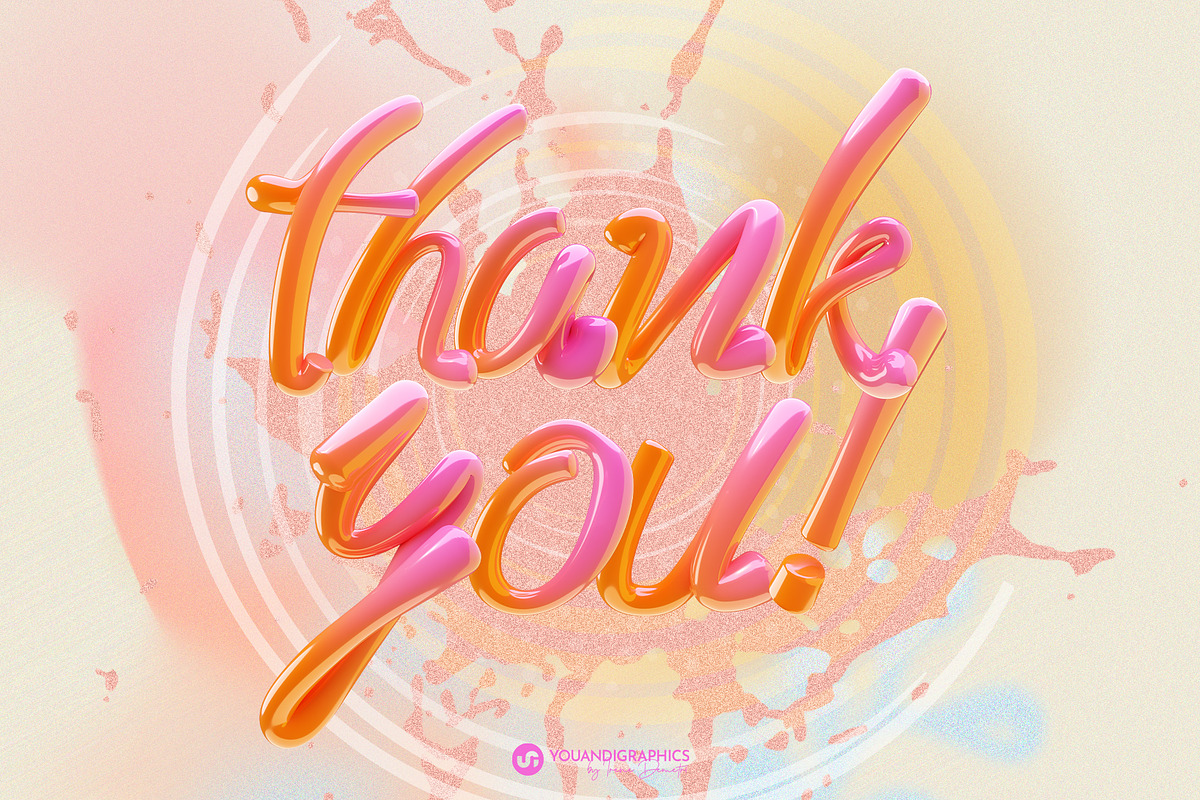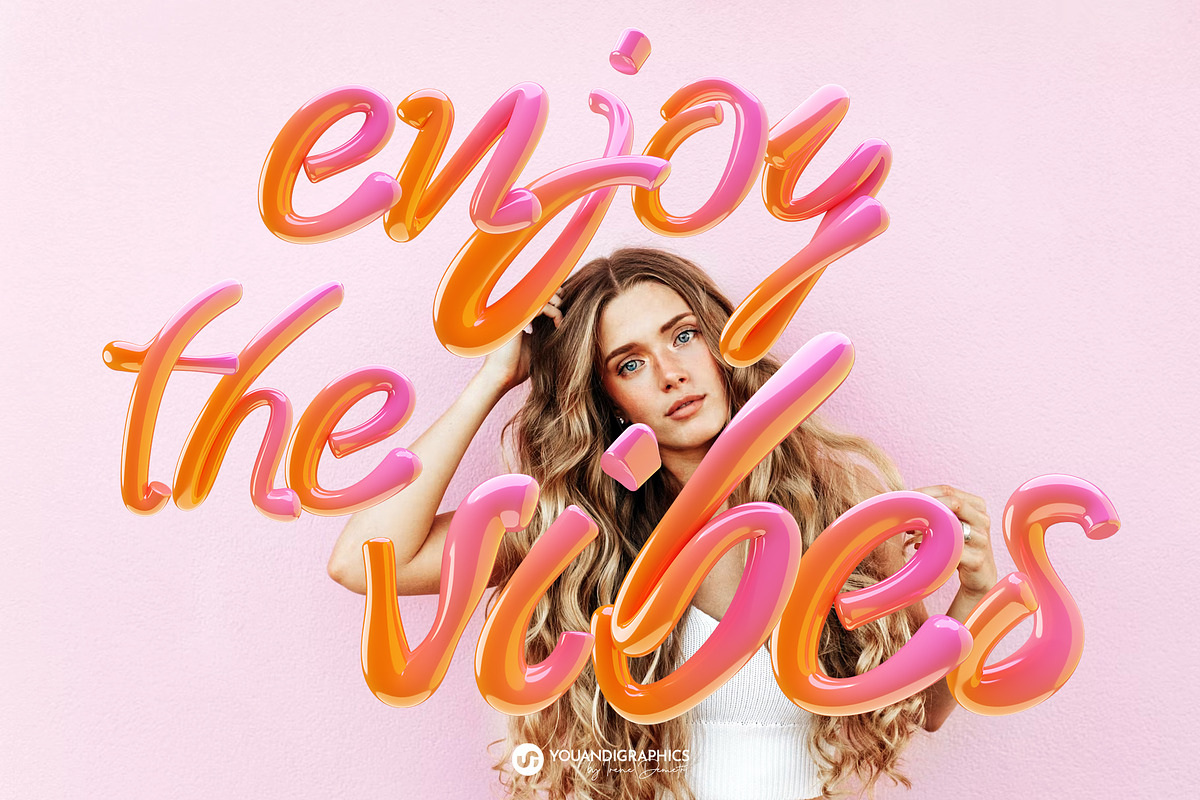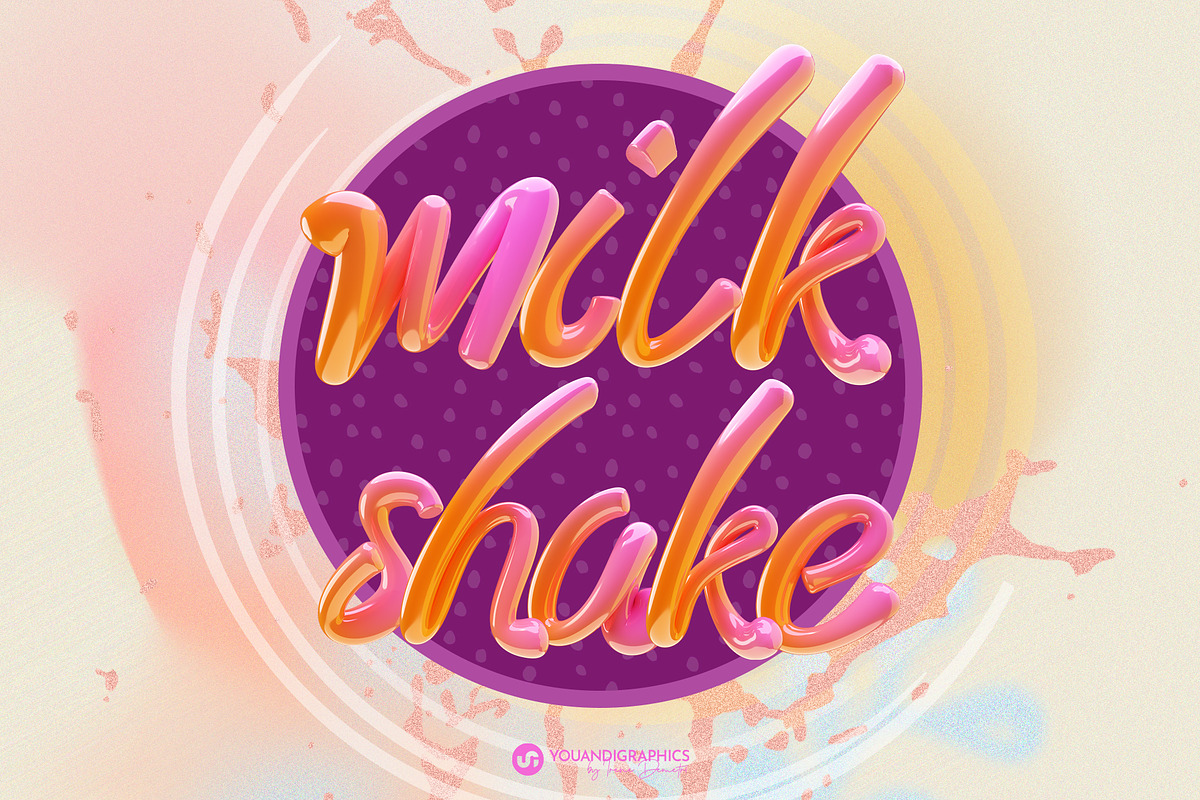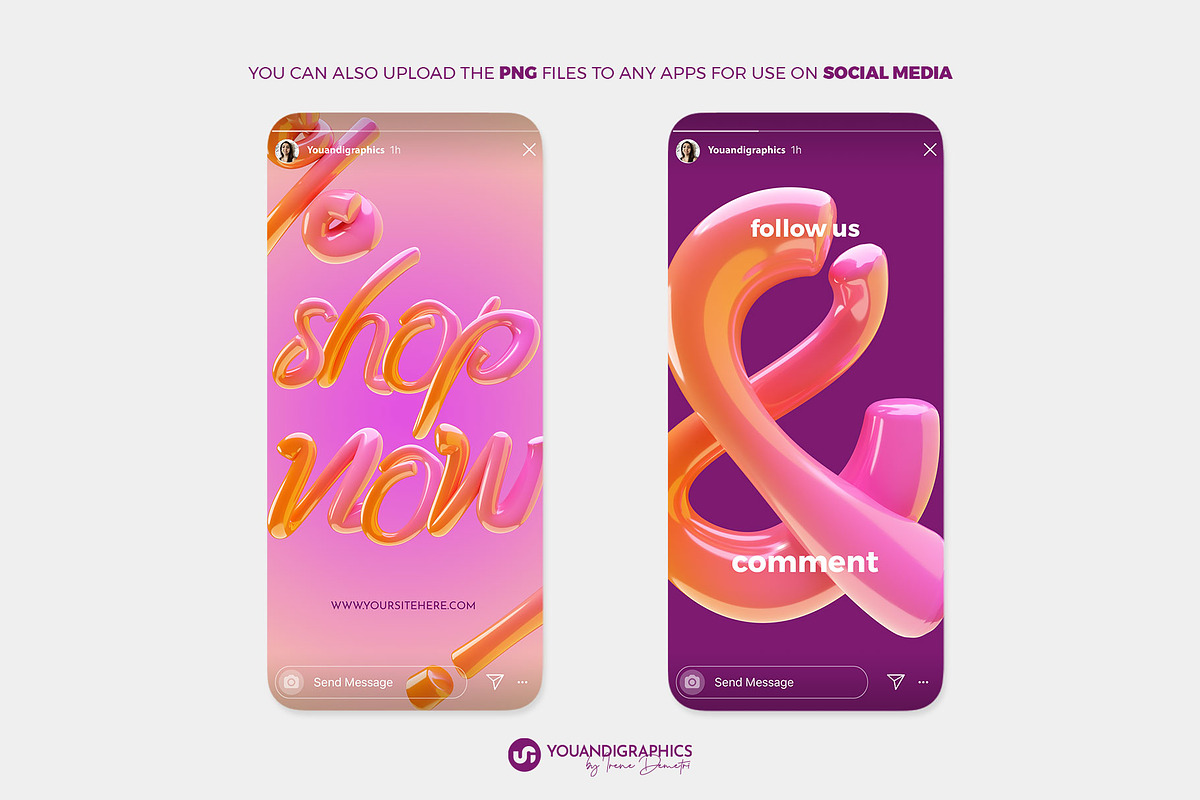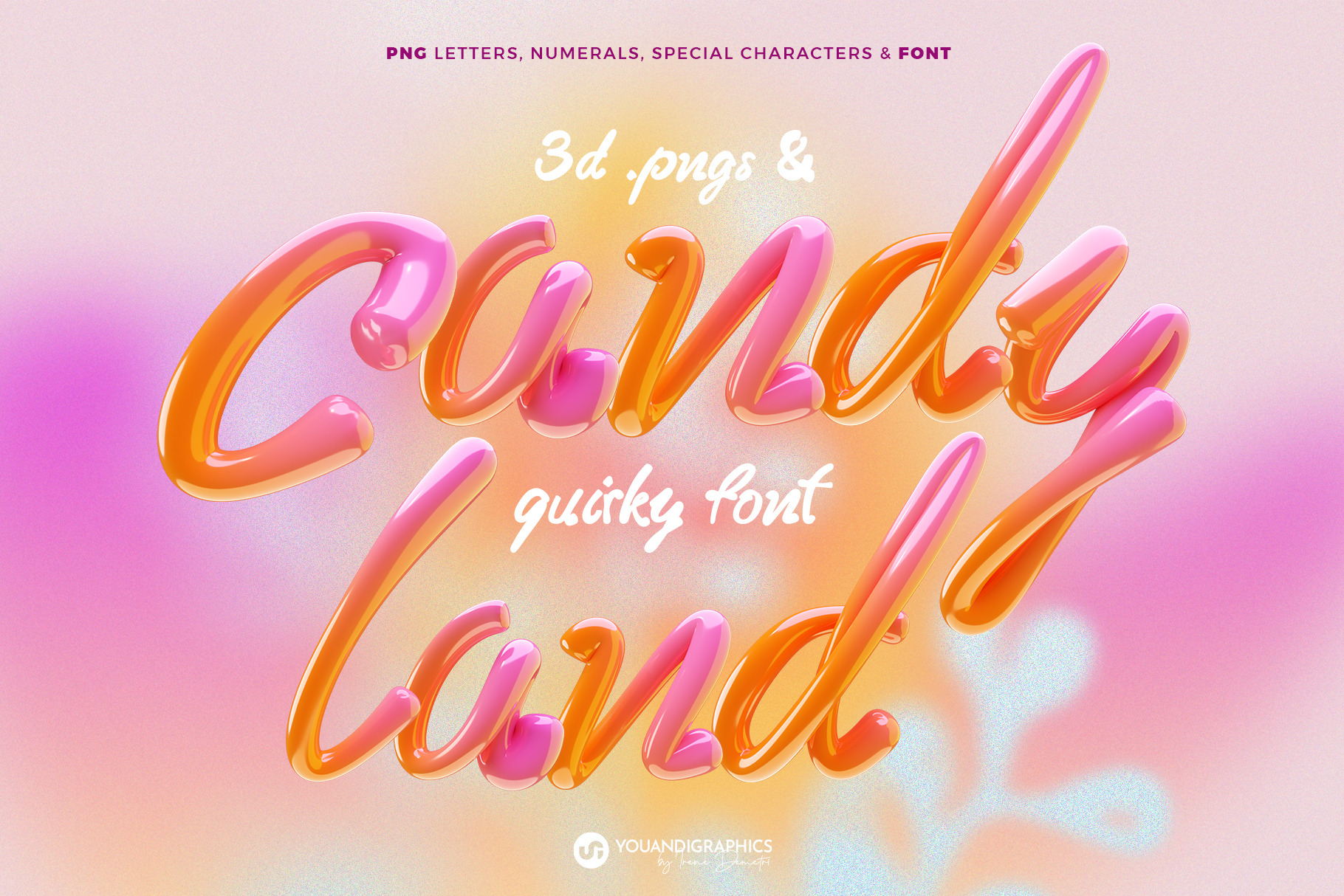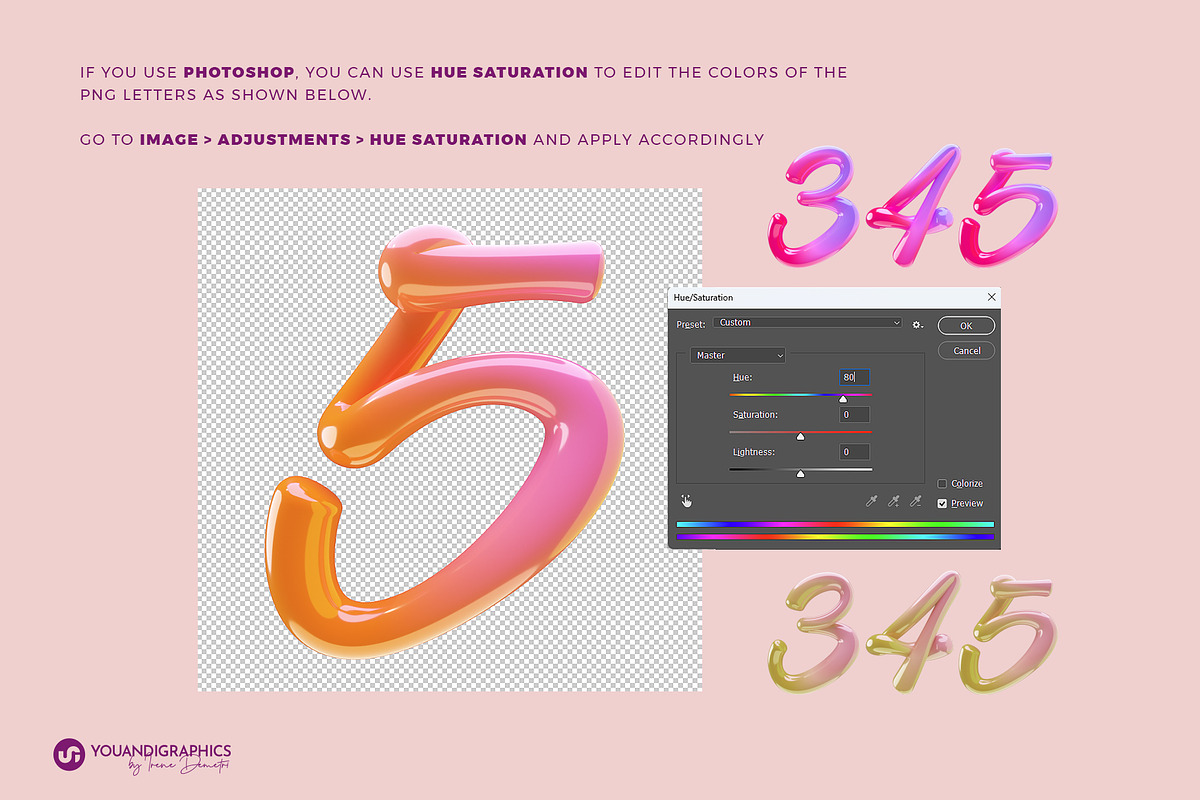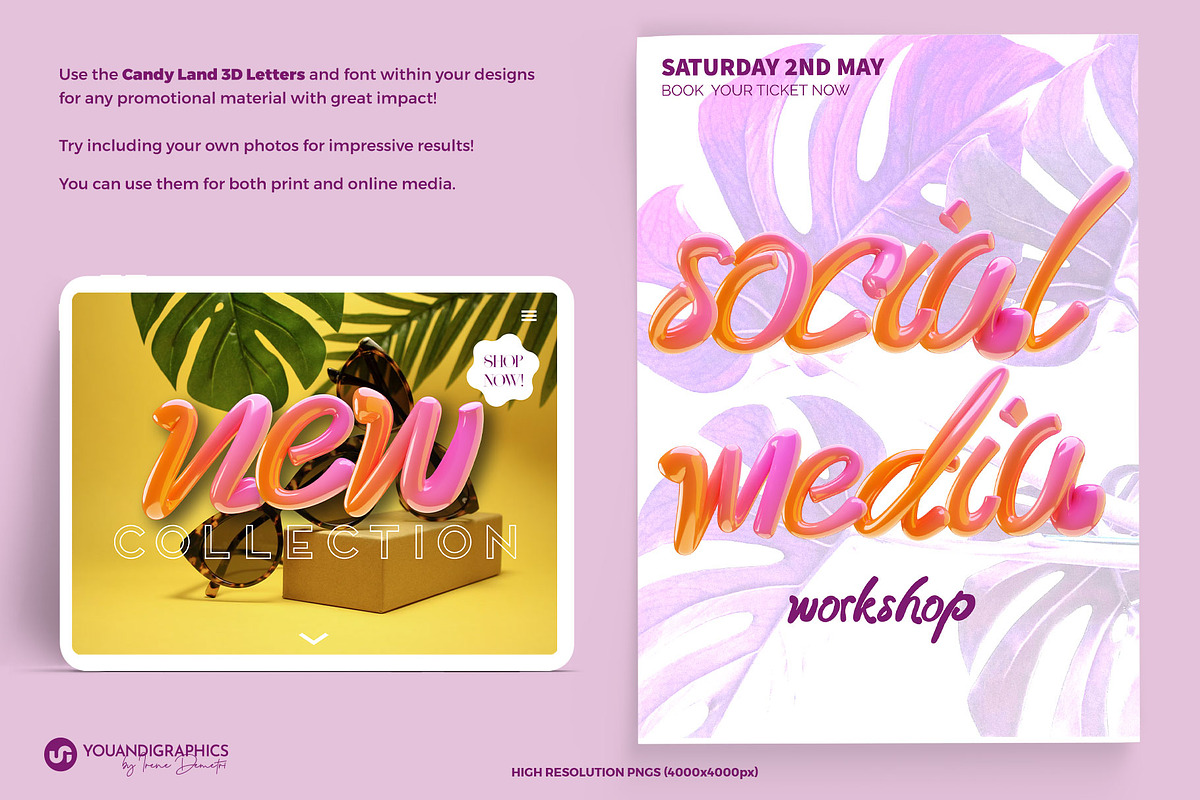
Candy Land 3D Letters and Font
Candy Land 3D Letters and Font is a collection featuring vibrant 3D PNG letters, numerals, and characters crafted in a fun glossy, bold gradient, with a candy like, playful feel.
Additionally, enjoy the included font featuring plain flat characters for added flexibility in your creative projects.